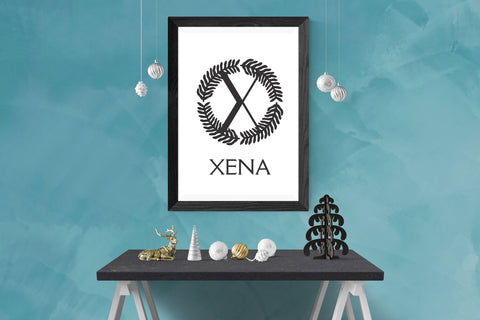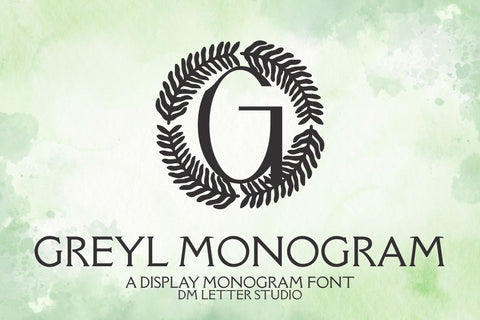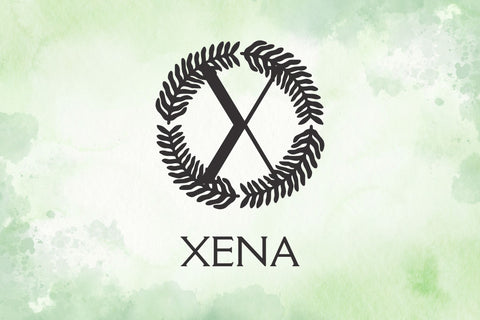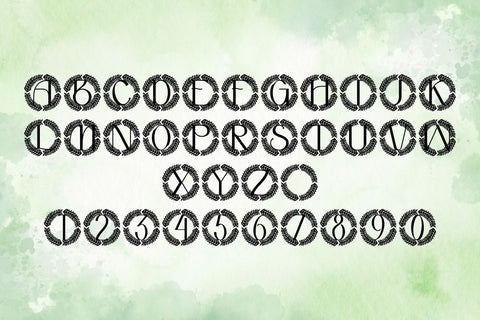
Greyl Monogram
Meet Greyl, the Monogram Font
Greyl Monogram turns simple initials into clean, modern emblems with a calm, upscale feel. The strokes are smooth and balanced, so letters stay clear at any size. Because counters remain open, tiny tags print crisp while large signage looks sharp and refined. Use it for boutique logos, wedding suites, keepsake gifts, wax seals, stationery, and premium packaging. As a result, your designs feel polished and professional without needing extra decoration.
Fast layouts with the Greyl Monogram Font
Start with a generous initial and keep the layout airy. After that, add names, dates, or short titles in a simple supporting font. Because Greyl holds shape at small sizes, cards, cartons, acrylic signs, and tags print beautifully. In addition, the proportions work great with oval borders, thin dividers, minimal wreath accents, and simple badge shapes, so full sets come together in minutes. Finally, save palette pairs like charcoal & ivory, stone & cream, navy & pearl, or champagne & black to repeat across product lines.
Creative uses and quick wins
- Logo seals, place cards, and certificate badges
- Wax seals, ribbon tags, and keepsake boxes
- Invitation covers, menu headings, and table numbers
- Favor stickers, tissue labels, and thank-you notes
Design tips for Greyl Monogram Font